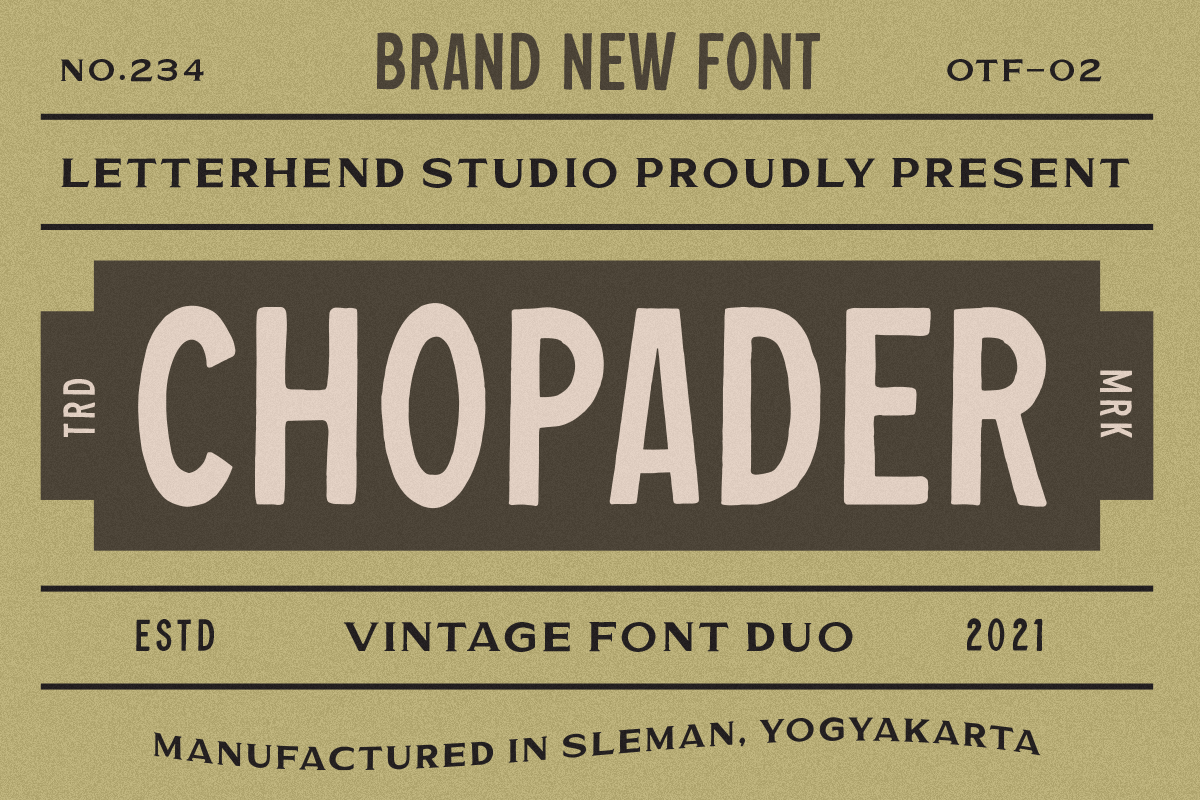
Chopader Font
Perfect for vintage branding, logos, posters, packaging, apparel design, and social media graphics.
The Chopader Font excites designers with its rustic charm, handcrafted texture, and bold, rugged letterforms that bring an authentic, timeless feel to any project.
The Chopader Font Free Download is a vintage-inspired display typeface designed to evoke a handcrafted, artisanal aesthetic. Its rough edges and textured strokes add character and depth, making it ideal for projects that aim for a warm, nostalgic vibe. Whether you’re creating branding for a craft brewery or designing event posters, Chopader delivers a strong personality.
One of the key strengths of Chopader Font is its versatility in balancing roughness with readability. Despite its textured style, it maintains clear legibility in both large headlines and smaller print, ensuring your message is impactful.
In branding, Chopader communicates authenticity, heritage, and creativity. It pairs perfectly with earthy color palettes, vintage graphics, and natural materials, helping brands establish a trustworthy and distinctive identity.
For digital projects, this font enhances website headers, social media posts, and e-commerce product listings with its bold, nostalgic style. Its unique texture ensures your digital presence stands out with personality.